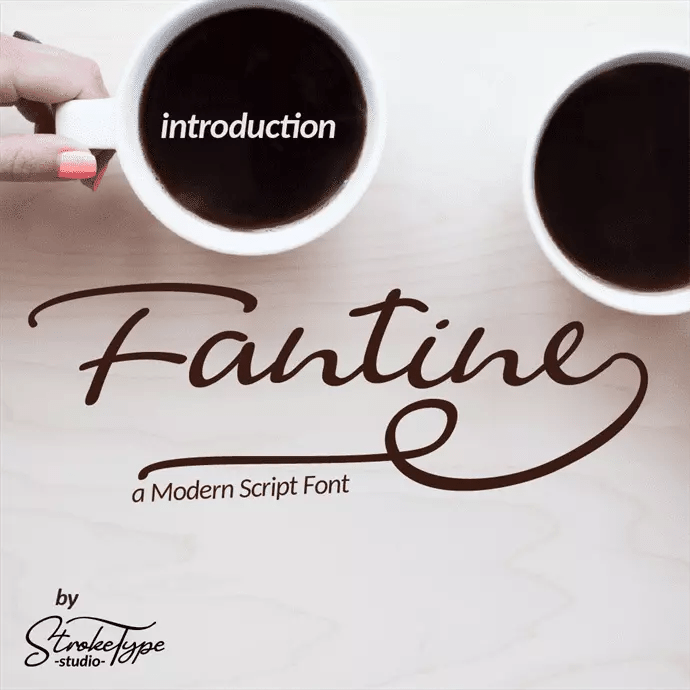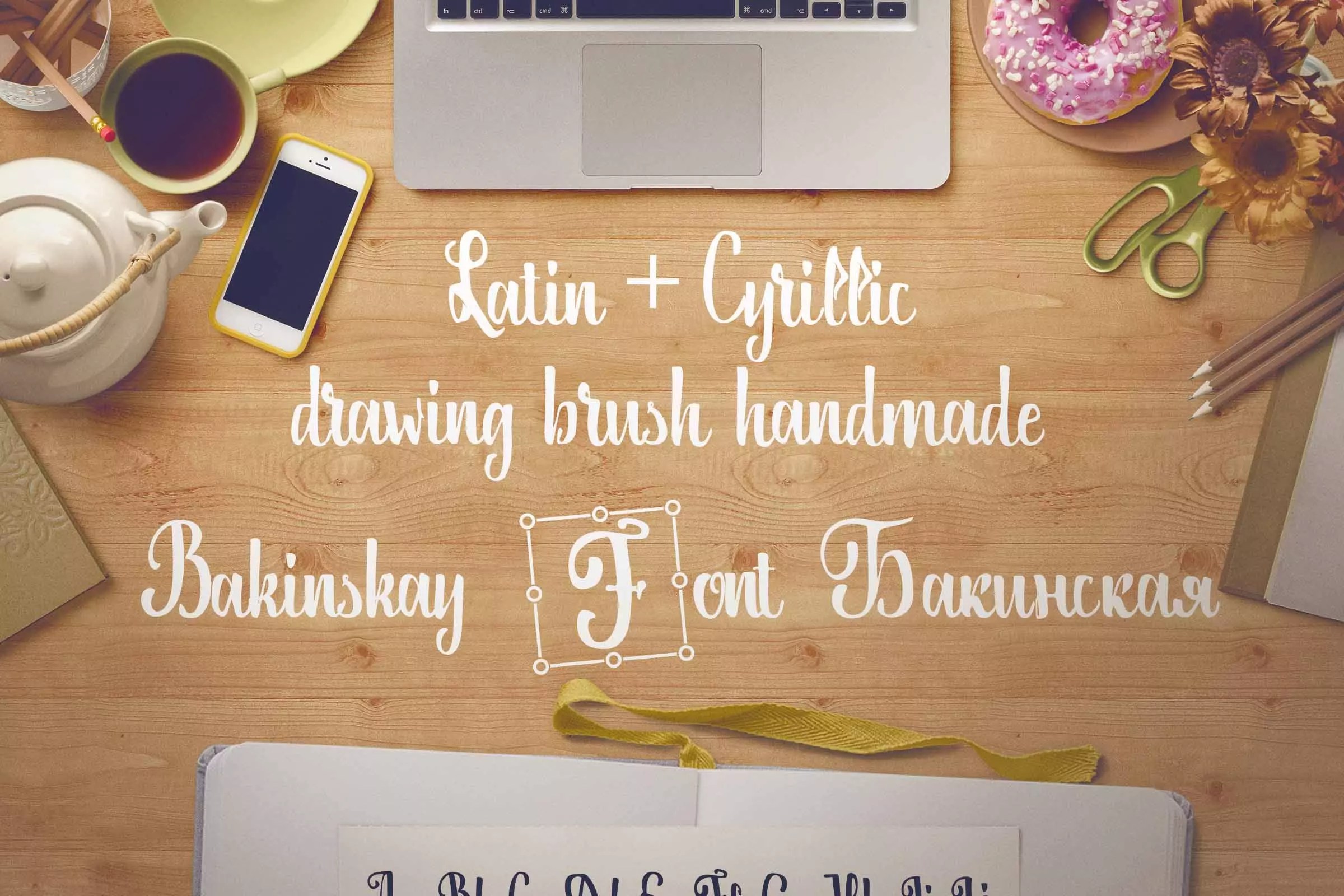
Best Free Fonts For Vinyl Lettering . The best fonts for vinyl lettering change based on what you’re trying to say and how you want to say it. Cricut design space comes with a few fonts, but you can use all the fonts here to make magnificent cuts and crafts. Download and enjoy one of the best free fonts for cricut. Now, let’s delve into the 15 best fonts for vinyl lettering and discover why they stand out: Cloudy night is a free casual handwriting script font for cricut that will add a playful touch to your designs. Top 15 fonts for vinyl lettering. Another big site with plenty of new free fonts submitted every week, da font allows you to download with the. If a font is 100% free, chances are a lot of people have it and use it. This versatile font is perfect for just about every cricut project for kids and adults. Wanderlust vinyl font (ttf, otf, svg, woff) wanderlust, as the name suggests, is inspired by travel and adventure, but you could also use it for other types of designs. This charming free script font for cricut has a touch of script flair, while keeping the letters apart.
Now, let’s delve into the 15 best fonts for vinyl lettering and discover why they stand out: Cricut design space comes with a few fonts, but you can use all the fonts here to make magnificent cuts and crafts. This versatile font is perfect for just about every cricut project for kids and adults. If a font is 100% free, chances are a lot of people have it and use it. Download and enjoy one of the best free fonts for cricut. Top 15 fonts for vinyl lettering. Wanderlust vinyl font (ttf, otf, svg, woff) wanderlust, as the name suggests, is inspired by travel and adventure, but you could also use it for other types of designs. This charming free script font for cricut has a touch of script flair, while keeping the letters apart. Another big site with plenty of new free fonts submitted every week, da font allows you to download with the. The best fonts for vinyl lettering change based on what you’re trying to say and how you want to say it.
Best Free Fonts For Vinyl Lettering This versatile font is perfect for just about every cricut project for kids and adults. This versatile font is perfect for just about every cricut project for kids and adults. Now, let’s delve into the 15 best fonts for vinyl lettering and discover why they stand out: Top 15 fonts for vinyl lettering. Another big site with plenty of new free fonts submitted every week, da font allows you to download with the. Cloudy night is a free casual handwriting script font for cricut that will add a playful touch to your designs. This charming free script font for cricut has a touch of script flair, while keeping the letters apart. Cricut design space comes with a few fonts, but you can use all the fonts here to make magnificent cuts and crafts. The best fonts for vinyl lettering change based on what you’re trying to say and how you want to say it. If a font is 100% free, chances are a lot of people have it and use it. Wanderlust vinyl font (ttf, otf, svg, woff) wanderlust, as the name suggests, is inspired by travel and adventure, but you could also use it for other types of designs. Download and enjoy one of the best free fonts for cricut.
Free Cricut Fonts For Vinyl at Charlotte Mowery blog Best Free Fonts For Vinyl Lettering Another big site with plenty of new free fonts submitted every week, da font allows you to download with the. If a font is 100% free, chances are a lot of people have it and use it. Cloudy night is a free casual handwriting script font for cricut that will add a playful touch to your designs. Now, let’s delve. Best Free Fonts For Vinyl Lettering.
12 Best Fonts for Vinyl Lettering in 2020 Master Bundles Best Free Fonts For Vinyl Lettering This charming free script font for cricut has a touch of script flair, while keeping the letters apart. The best fonts for vinyl lettering change based on what you’re trying to say and how you want to say it. Now, let’s delve into the 15 best fonts for vinyl lettering and discover why they stand out: Cricut design space comes. Best Free Fonts For Vinyl Lettering.
12 Best Fonts for Vinyl Lettering in 2021 MasterBundles Best Free Fonts For Vinyl Lettering This charming free script font for cricut has a touch of script flair, while keeping the letters apart. This versatile font is perfect for just about every cricut project for kids and adults. If a font is 100% free, chances are a lot of people have it and use it. Download and enjoy one of the best free fonts for. Best Free Fonts For Vinyl Lettering.
Best Free Fonts for Vinyl Cutting Best Free Fonts For Vinyl Lettering Cricut design space comes with a few fonts, but you can use all the fonts here to make magnificent cuts and crafts. If a font is 100% free, chances are a lot of people have it and use it. Top 15 fonts for vinyl lettering. This versatile font is perfect for just about every cricut project for kids and adults.. Best Free Fonts For Vinyl Lettering.
12 Best Fonts for Vinyl Lettering in 2021 MasterBundles Best Free Fonts For Vinyl Lettering Another big site with plenty of new free fonts submitted every week, da font allows you to download with the. The best fonts for vinyl lettering change based on what you’re trying to say and how you want to say it. Wanderlust vinyl font (ttf, otf, svg, woff) wanderlust, as the name suggests, is inspired by travel and adventure, but. Best Free Fonts For Vinyl Lettering.
Free Fonts For Vinyl Cutting Best Free Fonts For Vinyl Lettering Another big site with plenty of new free fonts submitted every week, da font allows you to download with the. Download and enjoy one of the best free fonts for cricut. This charming free script font for cricut has a touch of script flair, while keeping the letters apart. If a font is 100% free, chances are a lot of. Best Free Fonts For Vinyl Lettering.
12 Best Fonts for Cricut in 2022 [Free+Cursive] TVC Best Free Fonts For Vinyl Lettering Cricut design space comes with a few fonts, but you can use all the fonts here to make magnificent cuts and crafts. Wanderlust vinyl font (ttf, otf, svg, woff) wanderlust, as the name suggests, is inspired by travel and adventure, but you could also use it for other types of designs. Cloudy night is a free casual handwriting script font. Best Free Fonts For Vinyl Lettering.
12 Best Fonts for Vinyl Lettering in 2021 MasterBundles Best Free Fonts For Vinyl Lettering The best fonts for vinyl lettering change based on what you’re trying to say and how you want to say it. This versatile font is perfect for just about every cricut project for kids and adults. Top 15 fonts for vinyl lettering. Cloudy night is a free casual handwriting script font for cricut that will add a playful touch to. Best Free Fonts For Vinyl Lettering.
Free Pretty Fonts For Cricut Cricut Fonts Free Fonts For Cricut Images Best Free Fonts For Vinyl Lettering Download and enjoy one of the best free fonts for cricut. The best fonts for vinyl lettering change based on what you’re trying to say and how you want to say it. Now, let’s delve into the 15 best fonts for vinyl lettering and discover why they stand out: Top 15 fonts for vinyl lettering. This charming free script font. Best Free Fonts For Vinyl Lettering.